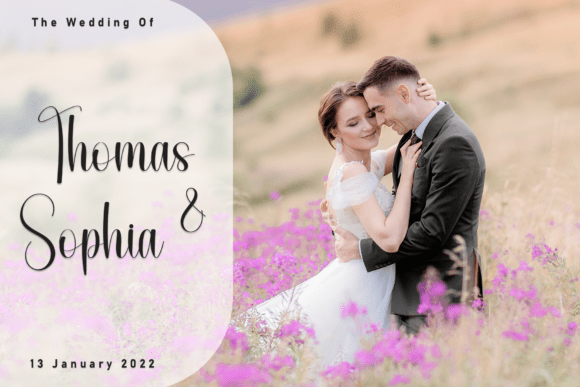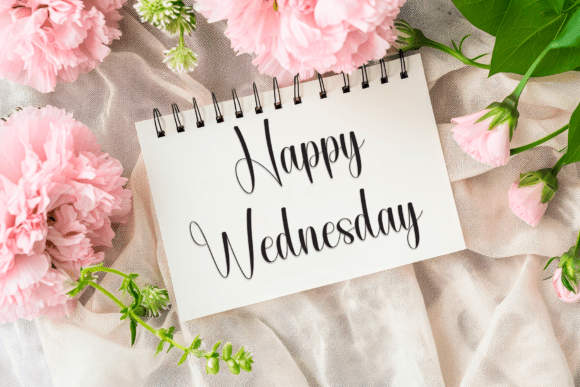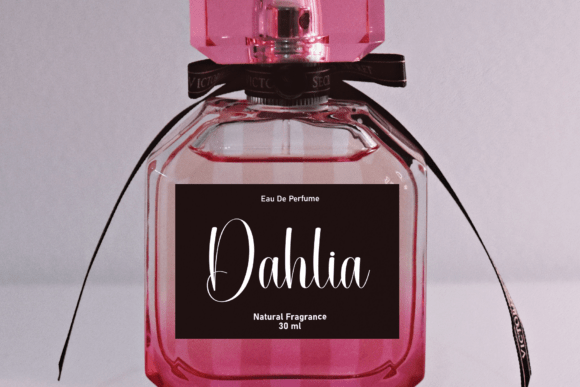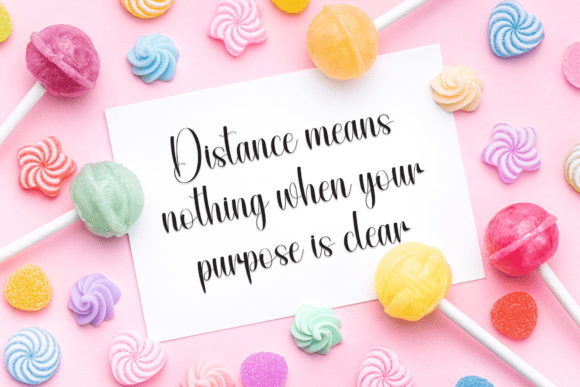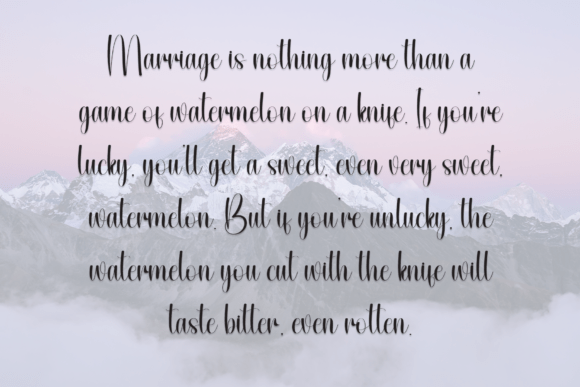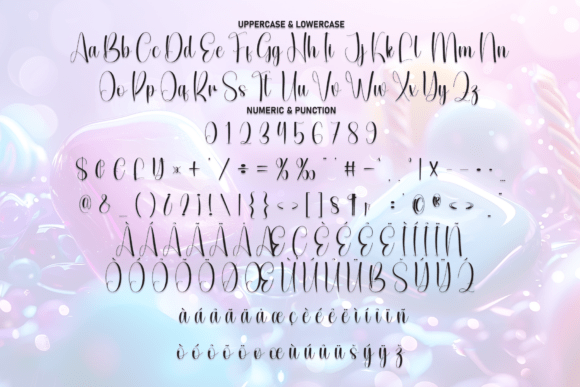
Introducing Glowing Candy Font: A Sweet Addition to Your Design Collection
Have you ever worked on a design project, only to find yourself stuck on the perfect font? I recall a particularly frustrating experience while designing a wedding invitation for a friend. The design was almost complete, but the font just wasn’t right. It was either too formal, too bland, or too over-the-top. That’s when I stumbled upon the Glowing Candy Font, and it was love at first sight! ✨
This stunning handwritten font is a tribute to life’s most heartfelt celebrations and profound emotions. Born from a delicious blend of sweet romance and effervescent adventure, Glowing Candy Font elevates wedding invitations, ornately designed cards, or any creative design longing for a dash of vibrancy.
- ✨ Elegant and charming, perfect for special occasions
- ✅ Highly legible, even in smaller sizes
- 🎉 Unique and eye-catching, adding a touch of whimsy to any design
- 💕 Perfect for designs that require a romantic, feminine touch
While Glowing Candy Font is an exceptional typeface, there are a few things to keep in mind: 🤔
- ⚠️ May not be suitable for very formal or corporate designs
- ⚠️ Limited availability of certain characters or glyphs
Glowing Candy Font was inspired by the designer’s love of romance, adventure, and all things sweet. Imagine a whimsical world where elegant script meets playful, effervescent charm. This font is the result of that creative fusion.
Q: What type of designs is Glowing Candy Font best suited for?
A: Glowing Candy Font is perfect for designs that require a touch of elegance and whimsy, such as wedding invitations, greeting cards, and creative projects.